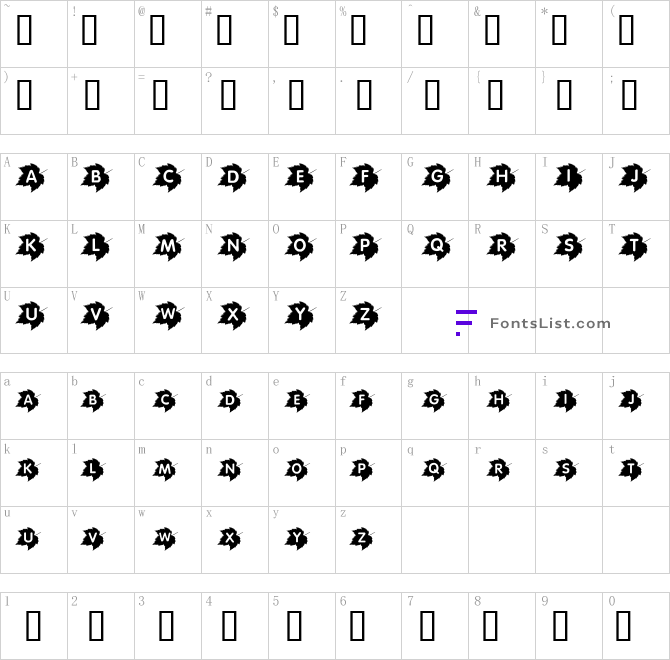
- Font Name:Canadian Autumn
Canadian-Autumn.ttf is a very beautiful artistic font, Canadian-Autumn.ttf is widely used in the design and printing of various books and pictures,Canadian-Autumn.ttf has a strong visual impact,Canadian-Autumn.ttf is a commonly used font in newspapers, magazines and books, and is used in posters, e-commerce Poster design, store design, logo design, font design and other fields.Canadian-Autumn.